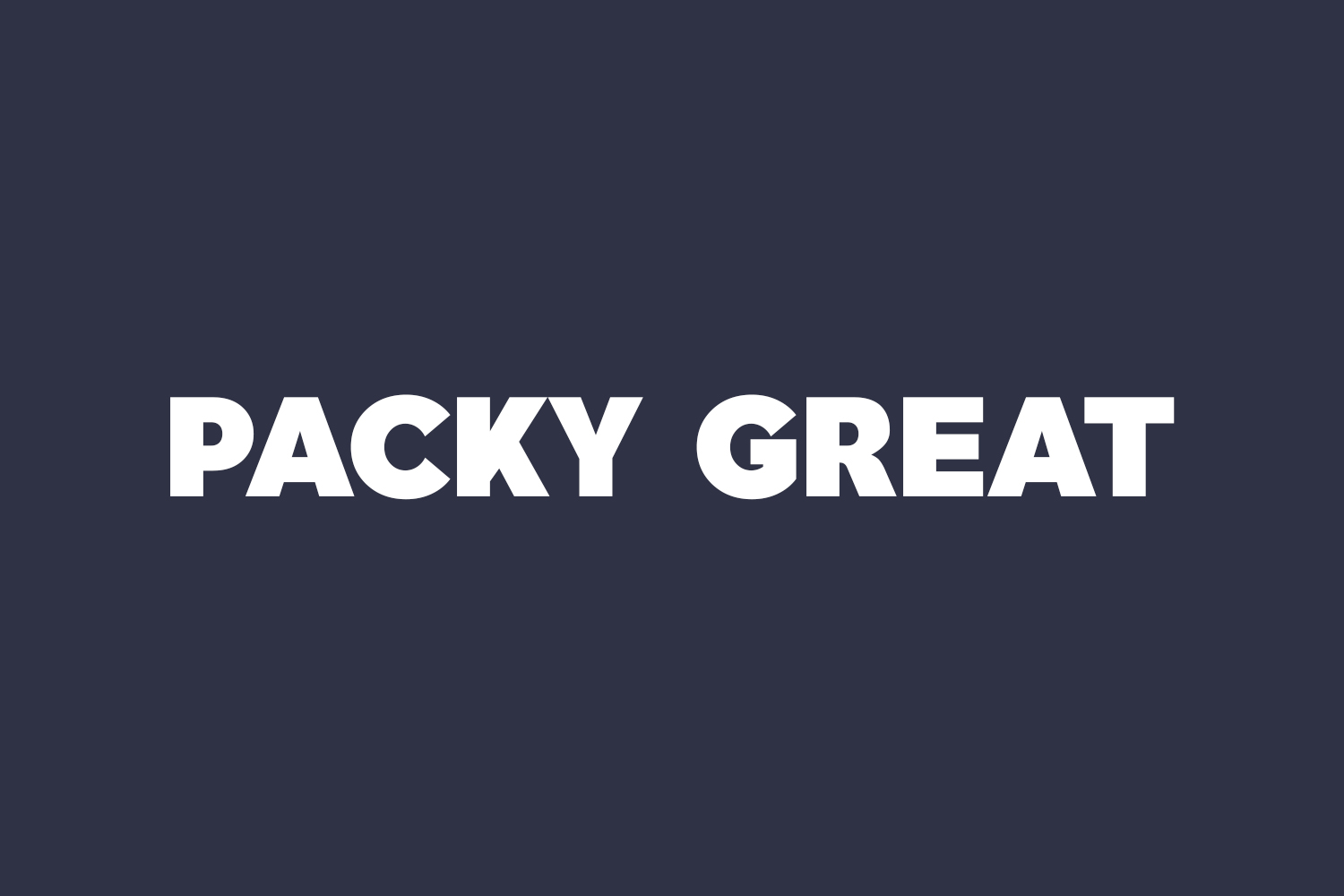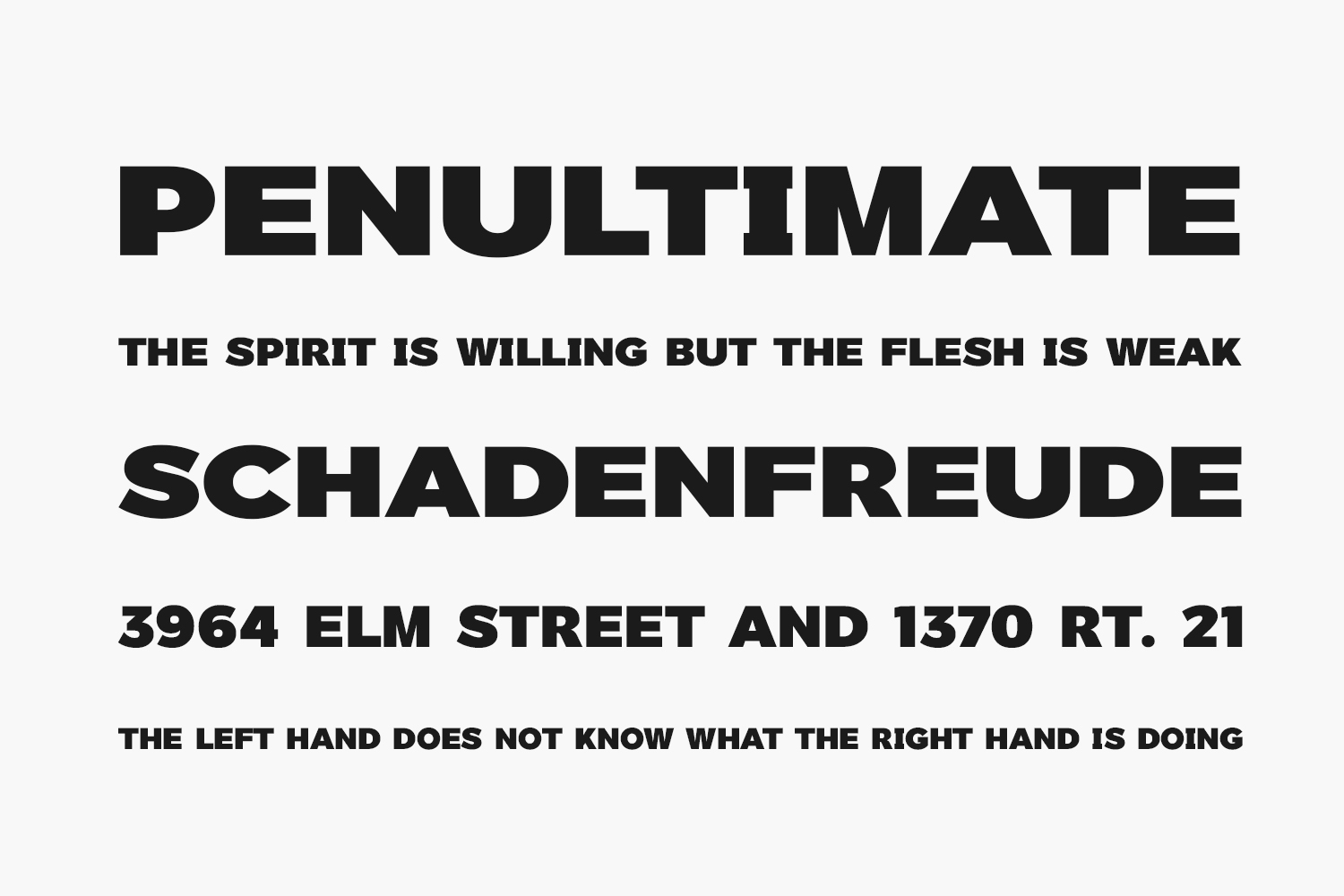
Packy Great is a modern, bold geometric sans‑serif typeface designed by Graphicxell. With thick, uniform strokes and balanced proportions, it delivers a strong and reliable presence—ideal for logos, headlines, posters, packaging, UI design, and editorial use. The font is available in TTF format, includes a full uppercase, numerals and basic Latin glyph set (~199 glyphs), and is free for personal use. A commercial license can be purchased via Creative Market or Envato.
Why Choose Packy Great?
- Bold Geometric Design: Uniform stroke weight and strong letterforms make it perfect for impactful display use.
- High-Impact Headline Font: Excellent for titles, event posters, and impactful branding.
- Minimalist Style: Inspired by modern minimalist logos, suitable for broad design contexts.
Where to Use Packy Great?
- Logos & Branding: Creates strong and memorable identities with its bold presence.
- Posters & Editorial Headers: Demands attention in large display settings.
- UI & Web Interfaces: Ideal for hero headers, buttons, banners, and interface titles.
- Packaging & Apparel: Works well in product labels, T-shirt graphics, and merchandise.
- Social Media & Ads: Suitable for YouTube thumbnails, banners, and promotional materials.
Design Tips with Packy Great
Use at large sizes (36pt+) with generous spacing for maximum impact. Pair with neutral sans-serifs like Ricordi Greto or Roboto for contrast. Leverage high-contrast palettes—black, white, bold primaries—or subtle textures for a minimalist aesthetic.